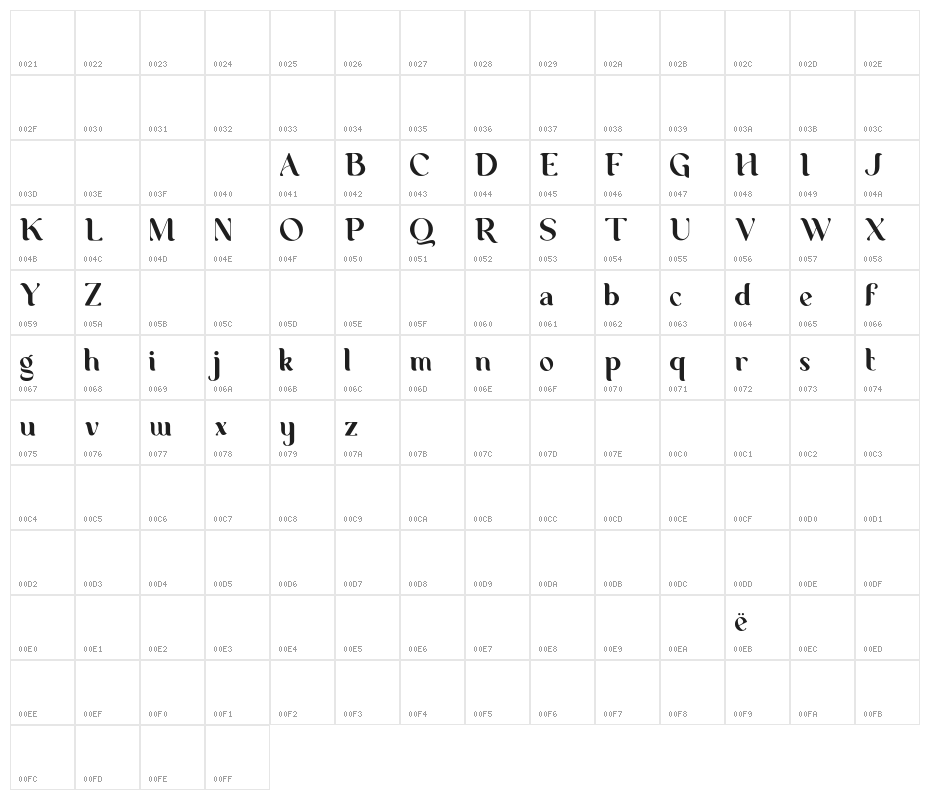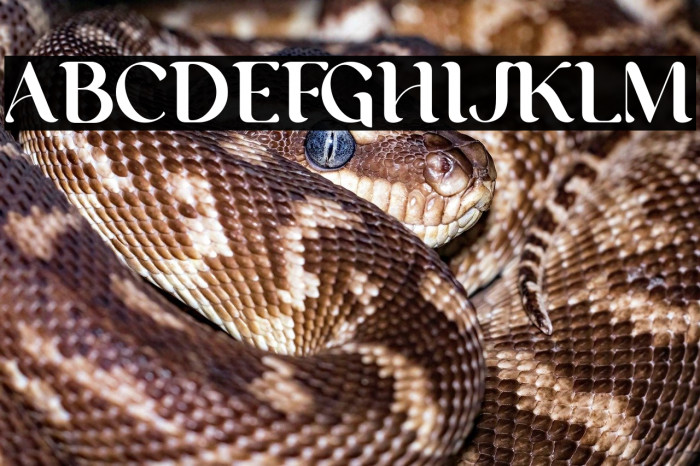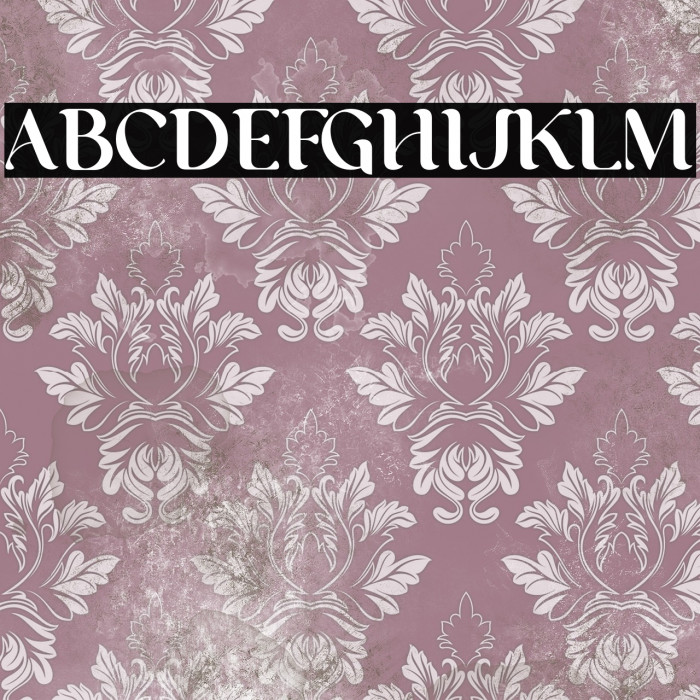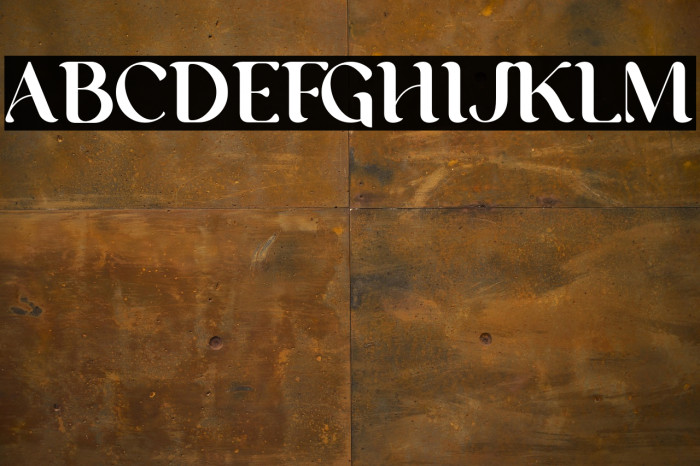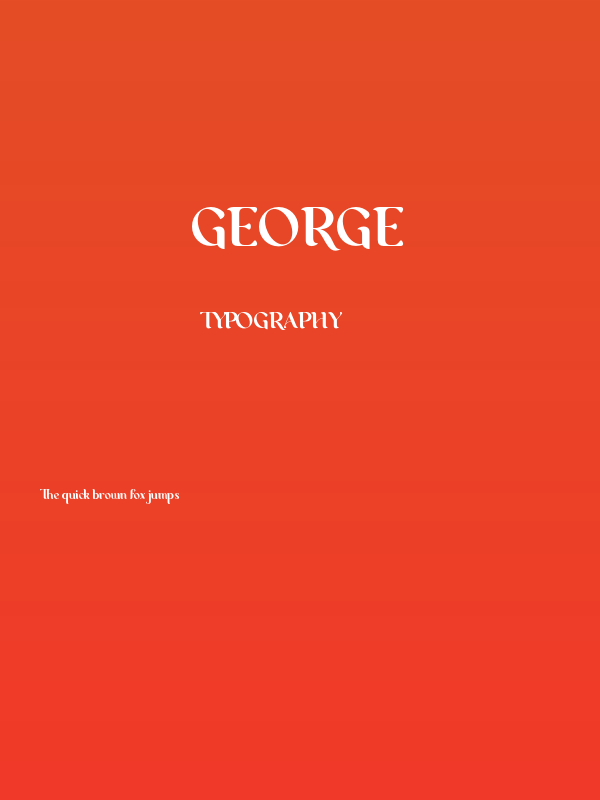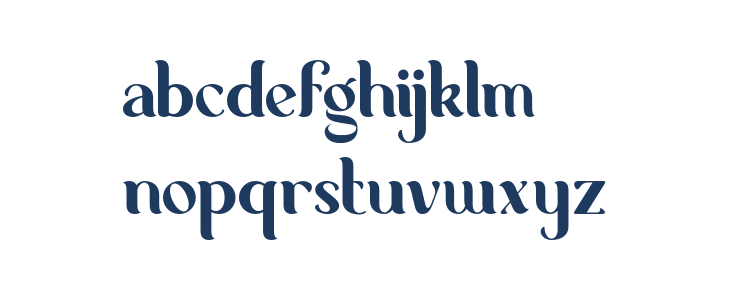
George Font
George Description
This font features a unique blend of classic and modern elements, characterized by its elegant curves and bold strokes. The uppercase letters exhibit a sophisticated flair with subtle serifs, while the lowercase letters maintain a consistent flow with a slightly whimsical touch. The numerals and special characters are designed to complement the overall aesthetic, ensuring a cohesive look across all text. The font's distinct style makes it suitable for a variety of creative applications, offering both readability and visual appeal.